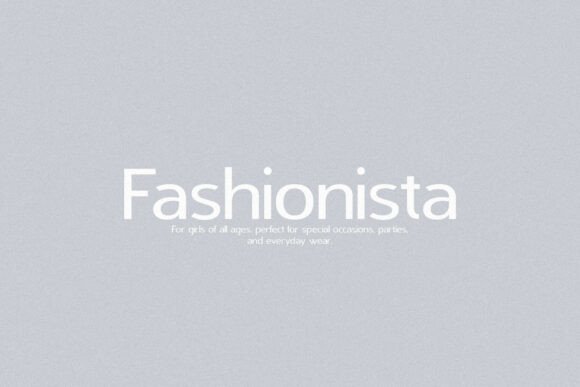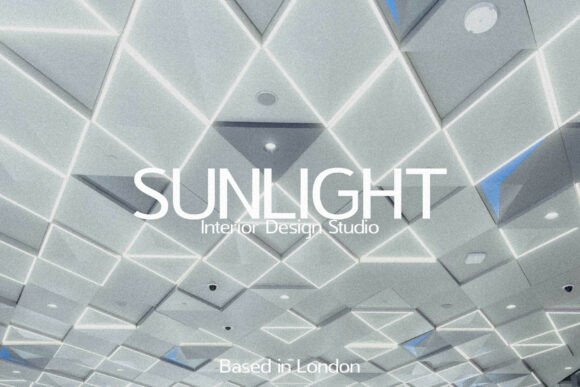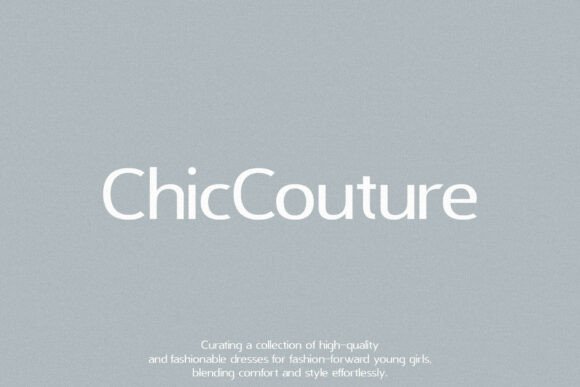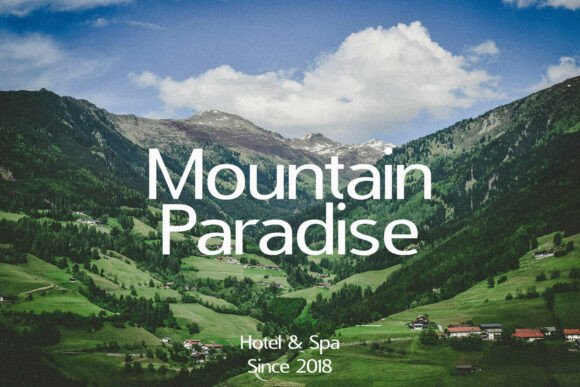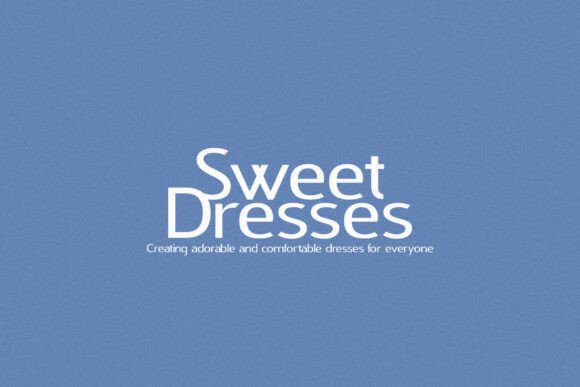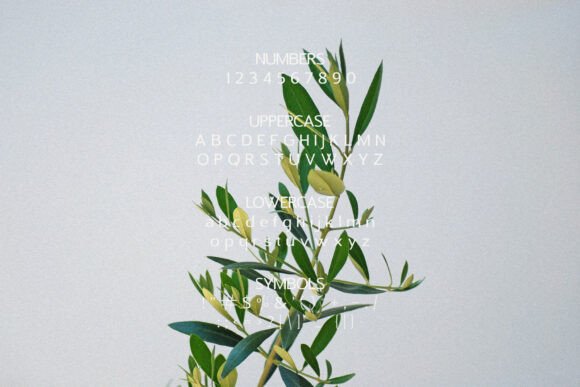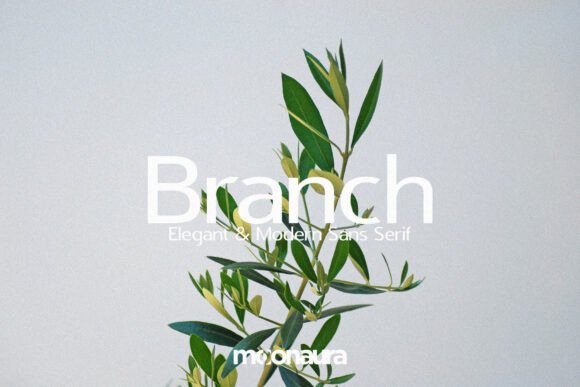
Introducing Branch Font: Elevate Your Design with Elegance and Sophistication
In the world of typography, a well-crafted font can make all the difference in elevating your design to new heights. If you’re a designer, craftsperson, or simply someone who appreciates the art of beautiful typography, you’re in luck. Meet Branch Font, an elegant, modern sans-serif typeface that is sure to captivate your audience with its clean lines and balanced proportions.
What is Branch Font?
Branch Font is a refined, modern sans-serif typeface designed to bring a touch of sophistication to your branding, editorial design, and digital projects. Its sleek and balanced design makes it perfect for those seeking a clean and elegant look that exudes professionalism and style. Whether you’re working on a luxury brand identity, a high-end editorial piece, or a premium digital product, Branch Font is the ideal choice.
Key Features of Branch Font
- Elegant and Modern Design: Branch Font boasts a sleek, contemporary design that is sure to turn heads. Its clean lines and balanced proportions create a visually appealing aesthetic that is both sophisticated and refined.
- Clean Lines and Balanced Proportions: The font’s clean lines and balanced proportions ensure that it remains highly legible, even at small sizes. This makes it perfect for use in a variety of applications, from body text to headings.
- Versatile and Adaptable: Branch Font is incredibly versatile and can be used in a wide range of design applications, including branding, editorial design, digital products, and more.
Why Choose Branch Font?
With so many fonts available, why choose Branch Font? Here are just a few reasons why designers and craftspersons are falling in love with this elegant typeface:
- Unique and Memorable: Branch Font’s unique design ensures that your work stands out from the crowd. Its elegant and sophisticated aesthetic is sure to leave a lasting impression on your audience.
- Highly Legible: The font’s clean lines and balanced proportions make it highly legible, even at small sizes. This ensures that your message is communicated clearly and effectively.
- Time-Saving: With Branch Font, you can achieve professional-looking results in a fraction of the time. Its versatility and adaptability mean that you can use it across multiple projects and applications.
How to Use Branch Font
Branch Font is incredibly easy to use and can be applied to a wide range of design projects. Here are just a few ideas to get you started:
- Branding: Use Branch Font to create a sophisticated and elegant brand identity that reflects your values and personality.
- Editorial Design: Apply Branch Font to your editorial designs, such as magazines, newspapers, and books, to add a touch of elegance and refinement.
- Digital Products: Use Branch Font to create premium digital products, such as websites, apps, and software, that exude professionalism and style.
In conclusion, Branch Font is an elegant, modern sans-serif typeface that is sure to elevate your design to new heights. Its refined design, clean lines, and balanced proportions make it perfect for sophisticated branding, editorial design, and upscale digital projects. With its comprehensive archive, versatility, and adaptability, Branch Font is an essential addition to any designer’s toolkit.